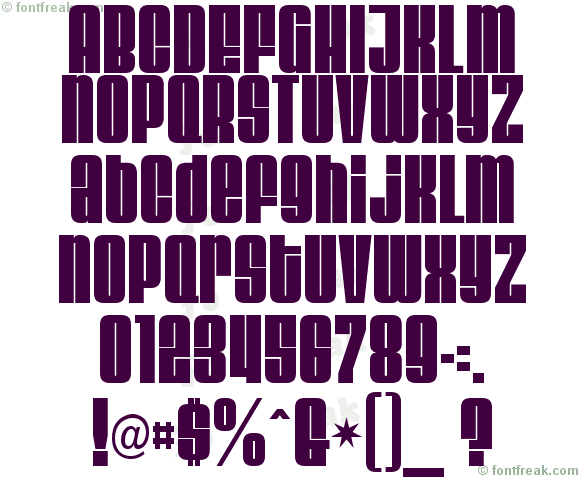
Velvenda Megablack
About Velvenda Megablack
Velvenda Megablack, designed by Ray Larabie, is a striking display font that embodies a bold, modern aesthetic. This sans-serif typeface features an impressive stroke weight, characterized by its thick, uniform lines that command attention while maintaining legibility. The lack of contrast in stroke weight gives it a solid presence, making it perfect for impactful designs. Its generous spacing enhances readability, allowing each letterform to stand out distinctly. Decorative elements are minimal, emphasizing the font's clean and contemporary style.
This font is versatile and can be used in various applications. It shines in movie posters, where its boldness can convey excitement and drama. For restaurant menus, Velvenda Megablack adds a touch of modern flair, making dishes pop and enticing diners. It’s also excellent for branding projects, particularly for businesses looking to make a strong impression with their logos and promotional materials. Additionally, the font is suitable for event flyers and advertisements, where grabbing attention quickly is essential.